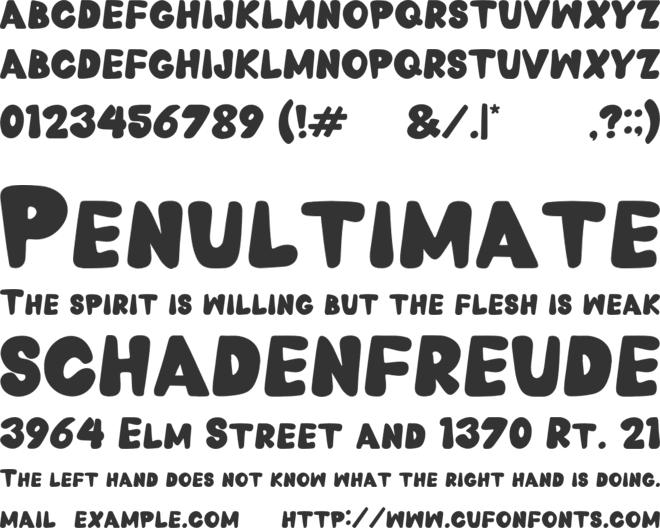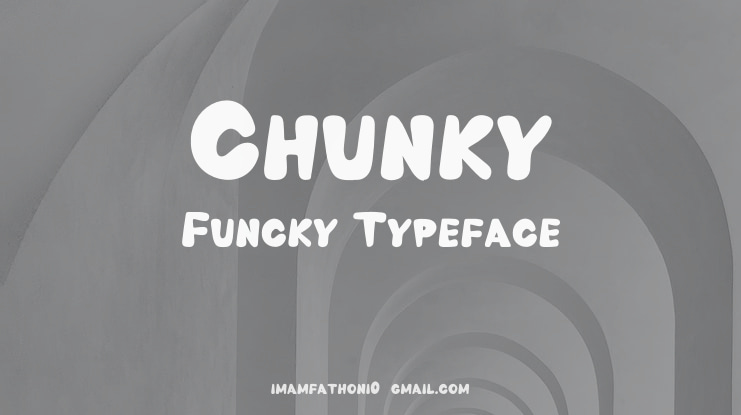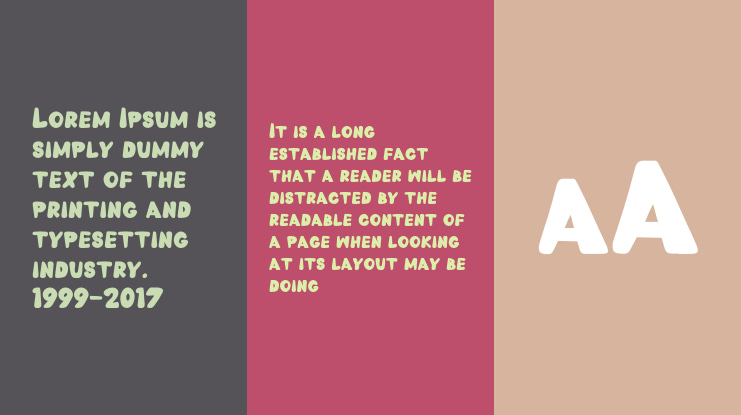
Chunky Funcky Font
Chunky Funcky is a bold, bubbly display font with rounded, blobby letterforms and a playful retro bounce. Its chunky outlines and cheerful rhythm suit children's books, candy packaging, party graphics, and t-shirts. The fat, irregular shapes bring a fun, funky energy to any playful design.